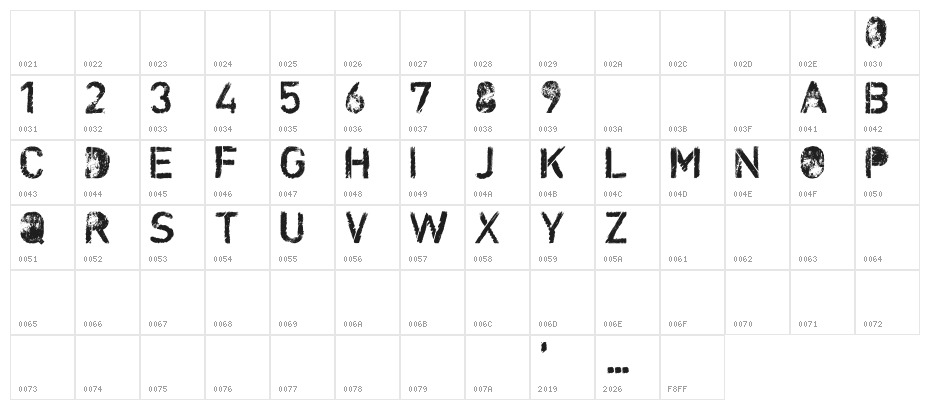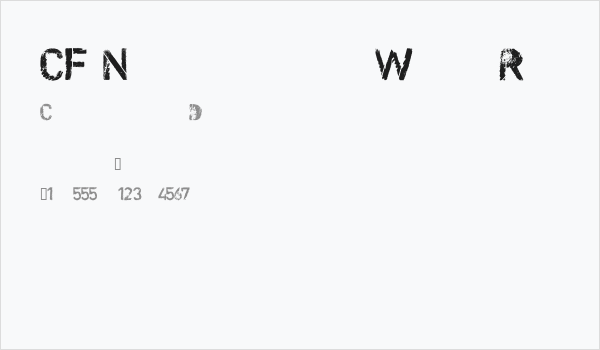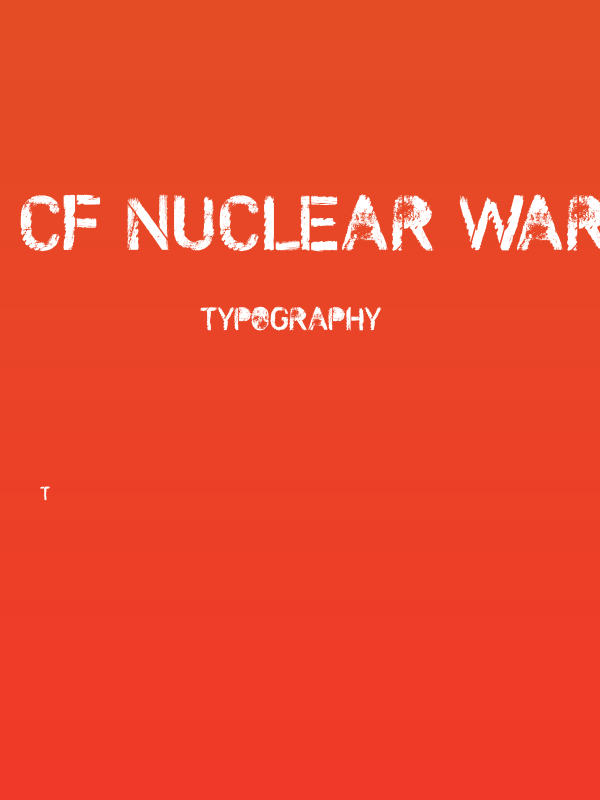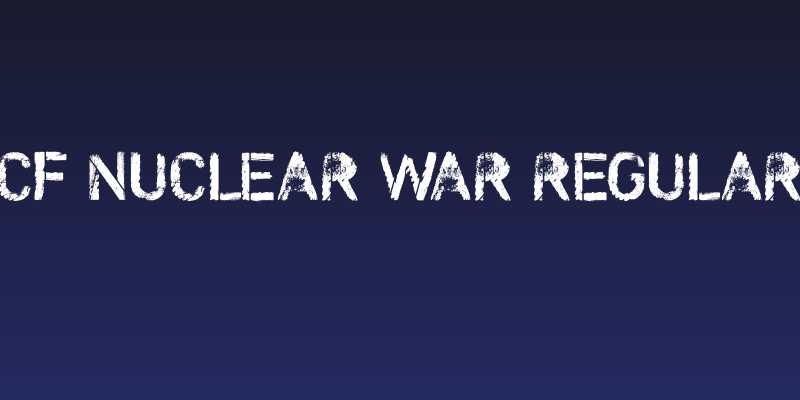
CF Nuclear War Regular Font
CF Nuclear War Regular Description
This font features a distressed, grunge style with a textured appearance that mimics the look of erosion or decay. Each character appears as if it has been weathered over time, giving it a rugged and raw aesthetic. The uppercase letters are bold and impactful, while the numbers maintain the same distressed quality, ensuring consistency across all characters. This font's unique style makes it stand out, ideal for projects that require a bold statement or an edgy, rebellious vibe. The lack of lowercase letters emphasizes its suitability for headlines or titles where emphasis is key.
| Overall Style | Grunge, Edgy, Distressed |
| Proposed Projects | Ideal for album covers, movie posters, video game graphics, or any project needing a bold, edgy look. |